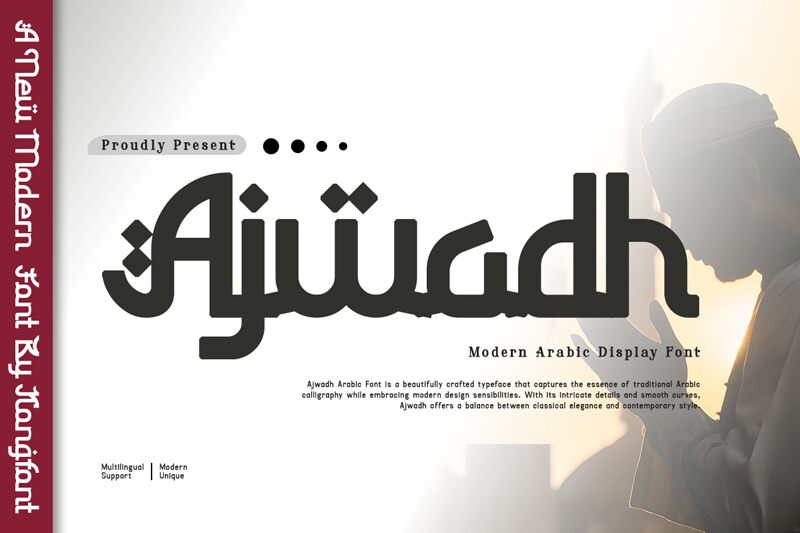
Ajwadh font by Kong Font is a free faux Arabic foreign typeface that turns Latin letters into bold, flowing forms with a strong Middle Eastern flavor. Thick, inky strokes twist into hooked curves and stacked dots, suggesting calligraphy while staying clean and readable. The rhythm feels continuous, like a painted sign or a neon script, giving headlines a striking, exotic edge without becoming messy or overworked.
Using Ajwadh, you can instantly set a themed mood for restaurant branding, food packaging, cultural event posters, game titles, film credits, or travel ads. This free font shines at larger sizes where its chunky curves and decorative dots can really breathe, and it pairs nicely with a simple geometric sans for body text to keep layouts clear and modern.